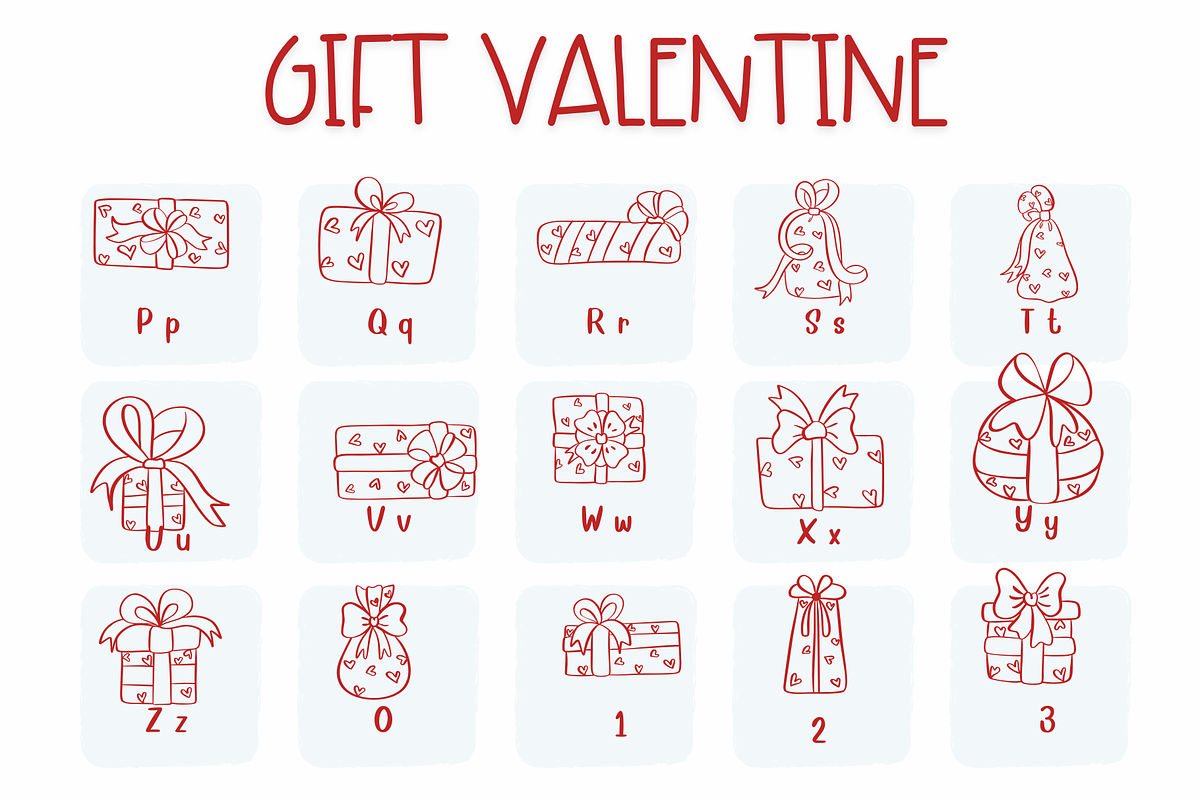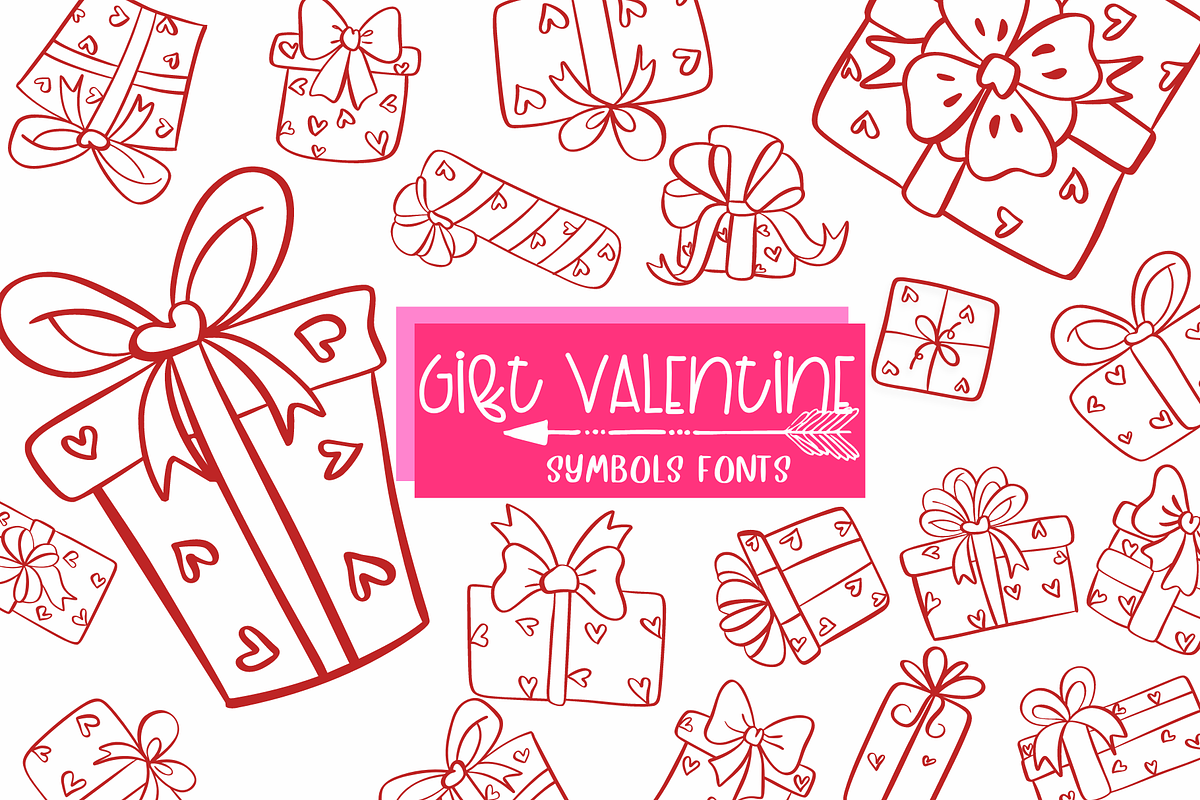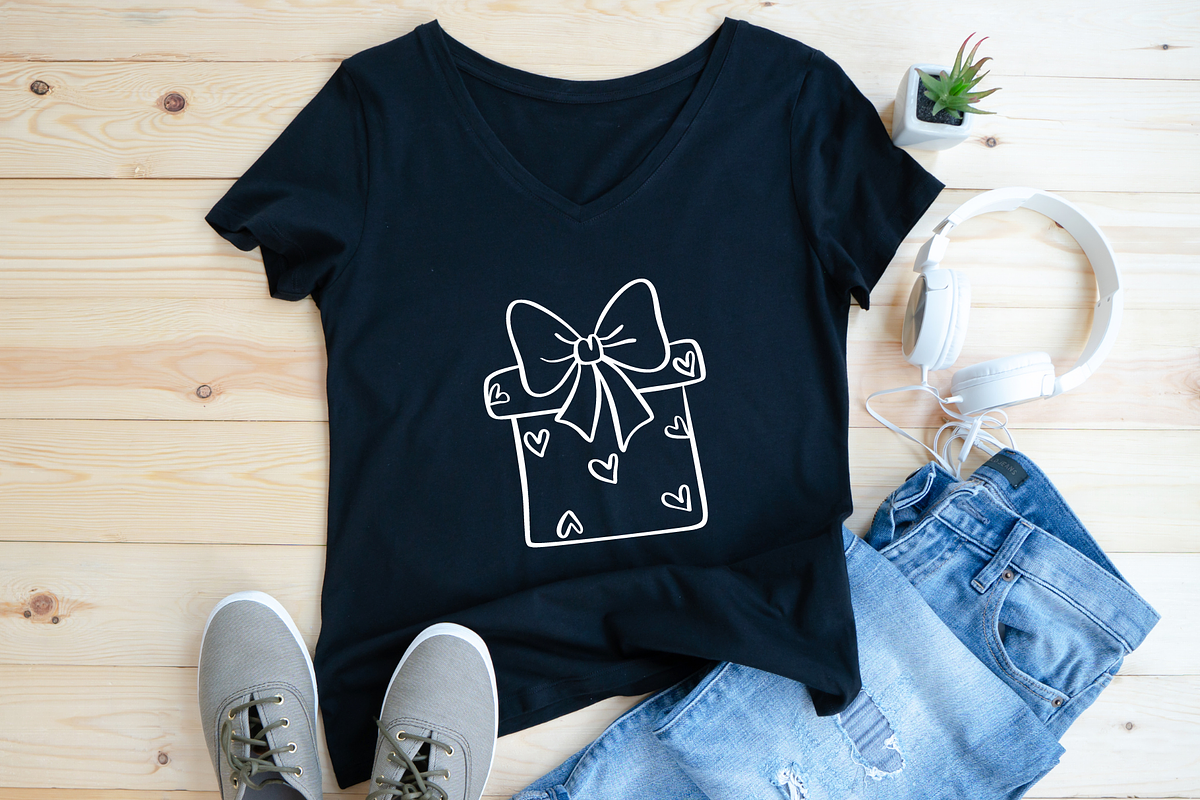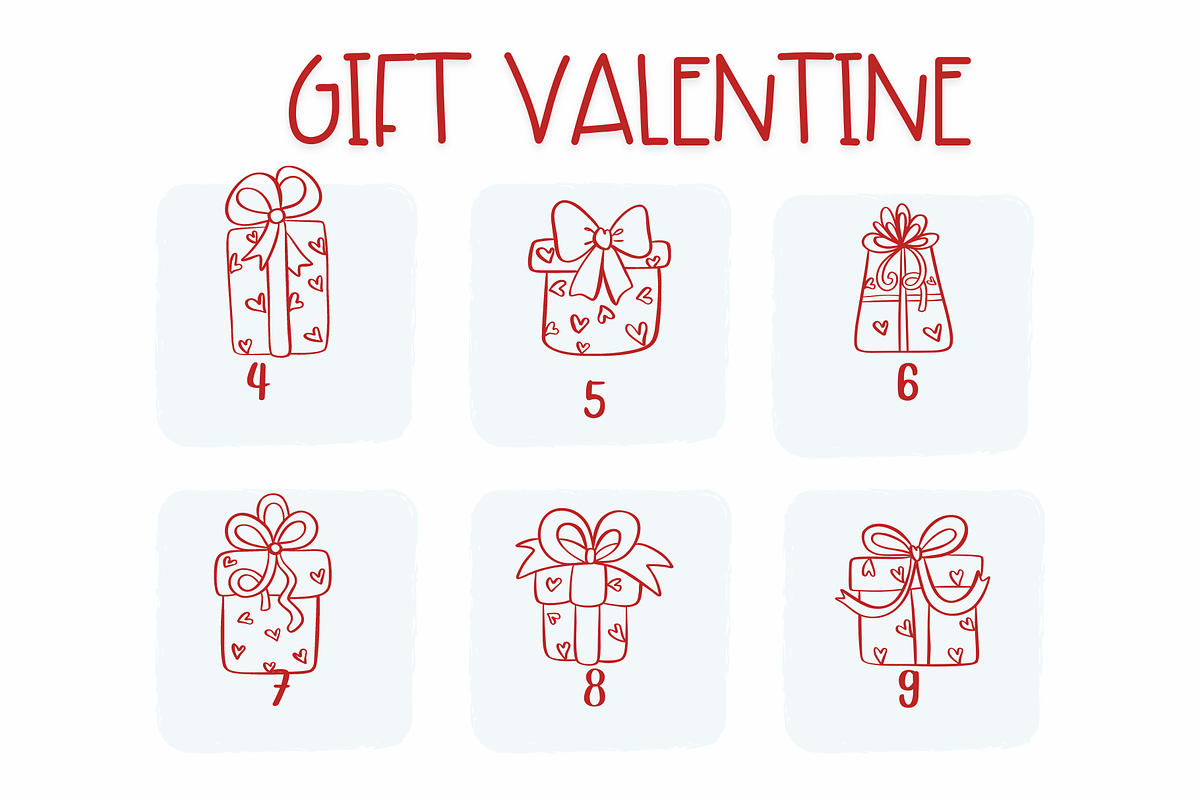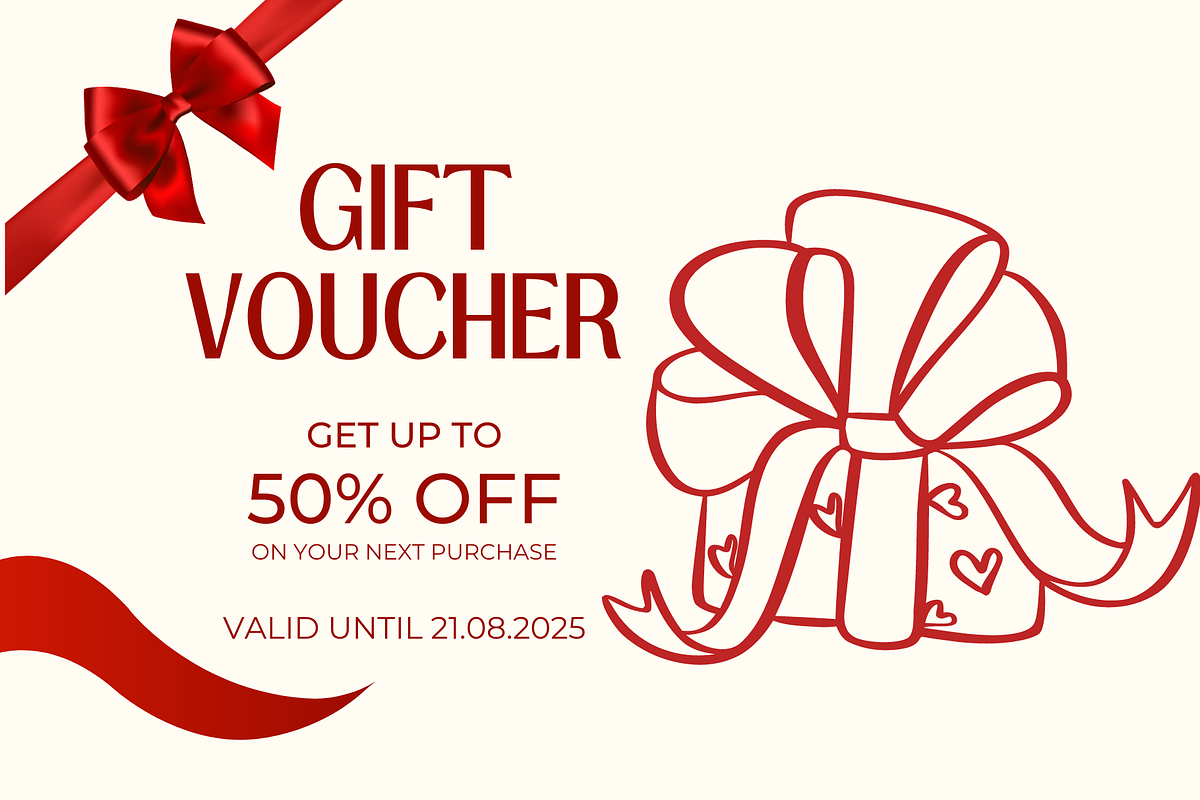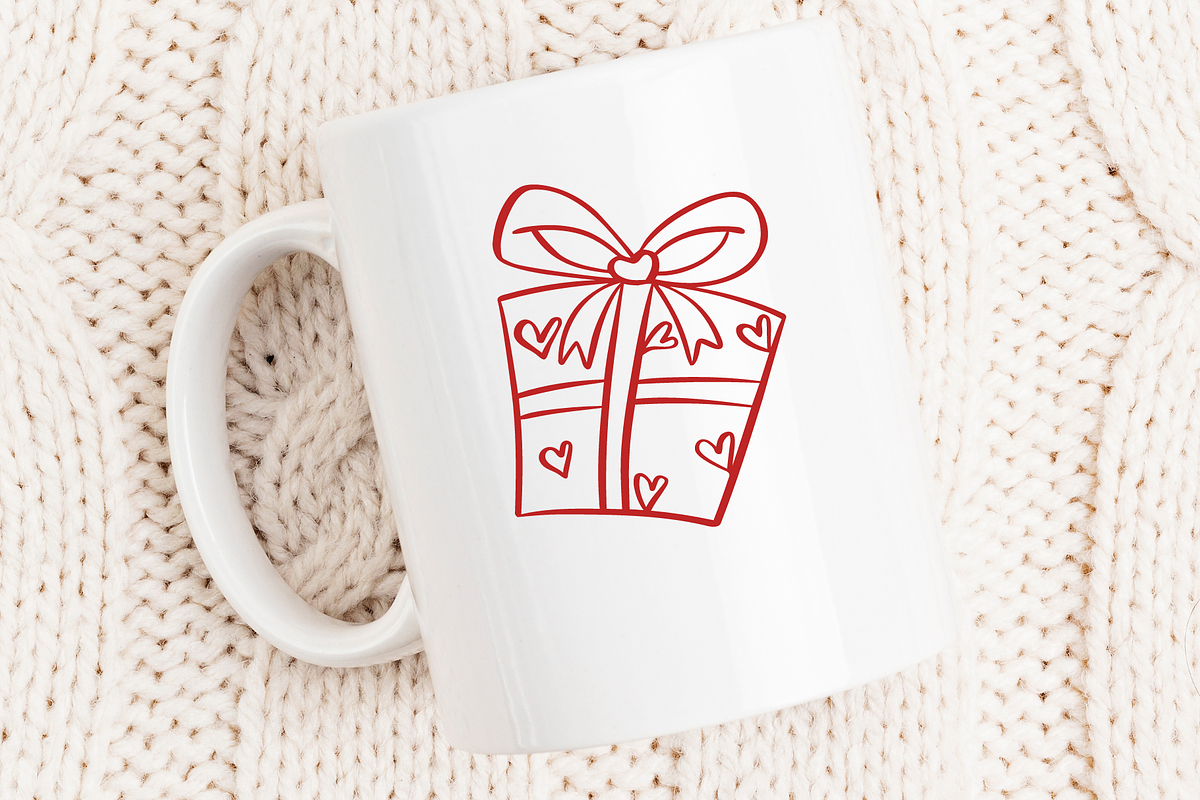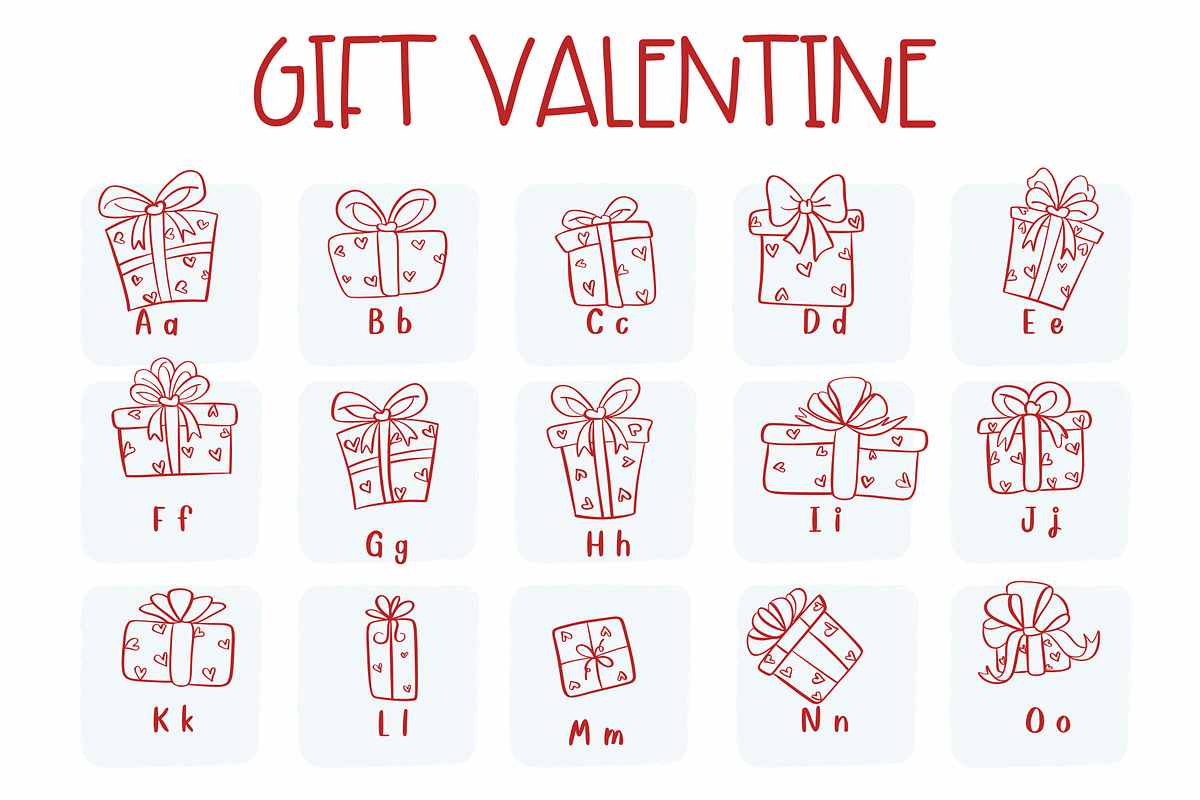
Gift Valentine | Symbols Fonts
Gift Valentine is a symbol fonts. You can use it for taking notes, writing a diary, or making greeting cards. However, you can still use it for other designs, such as banners, content, mugs, cards, shirts, stationery, social media posts, and more!